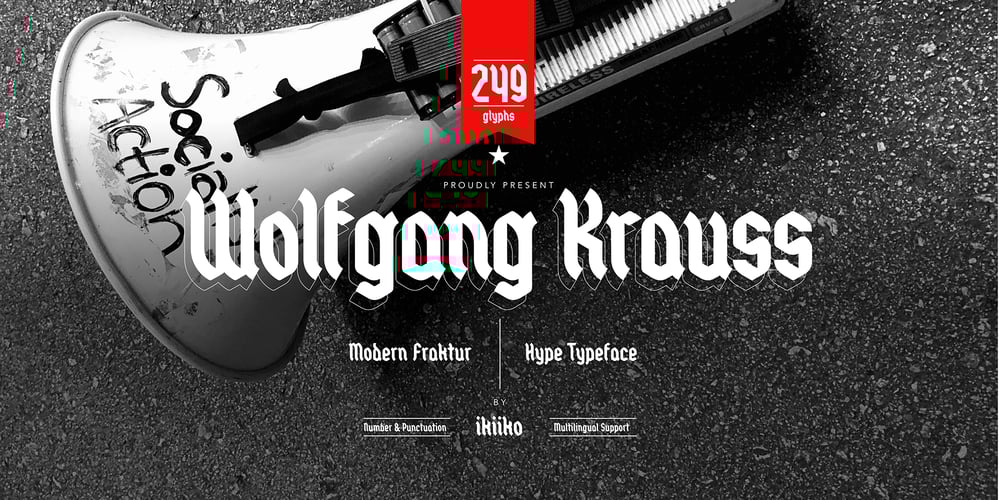
Wolfgang Krauss Font Family was designed by Andhika Pradana and published by IKIIKOWRK. Wolfgang Krauss contains 1 styles and family package options. Introducing Wolfgang Krauss – Modern Fraktur Typeface, created by ikiiko.A simple blackletter type with mood of modern fraktur style. This typeface is perfect for an poster event, stencil, hipster magazine, fashion stuff, T-shirt design, tote bag design, quotes, and so much more.What’s included? Uppercase & Lowercase Number & Punctuation Multilingual Support Format File : TTF & OTF Works on PC & Mac Get also a good offer & FREEBIE at our site : www.ikiiko.comEnjoy our font and if you have any questions, you can contact us by email : ikiikowrk@gmail.com